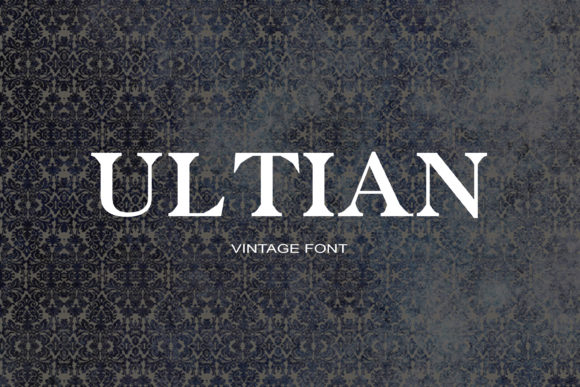
Immerse yourself in the captivating world of Ultian, a serif font that exudes elegance and modernity. Crafted with precision by the skilled artisans at DmDesignsStoreArt, Ultian is not just a font; it's an artistic masterpiece that will elevate your designs to new heights.
Step into a realm where classic serif strokes intertwine with a touch of contemporary flair, creating a symphony of visual delight. Ultian's meticulously crafted curves and sharp edges dance together, capturing the essence of timeless sophistication. Whether you're crafting a stunning logo, designing an eye-catching poster, or weaving your words into a captivating tale, Ultian will be your loyal companion, transforming your creative visions into reality.
With Ultian at your fingertips, you're not simply downloading a font; you're embracing the power to evoke emotions, convey messages, and leave a lasting impression. Its versatility knows no bounds, making it the perfect choice for a wide range of design endeavors.
Imagine your brand adorned with the sophisticated charm of Ultian, captivating your audience and leaving an indelible mark. Picture your words taking flight, carried by the graceful lines of Ultian, captivating readers and inspiring hearts.
Ultian is more than a font; it's a gateway to a world of creative possibilities. Its timeless elegance will elevate your designs, making them stand out from the mundane and leaving an unforgettable impression on all who encounter them.